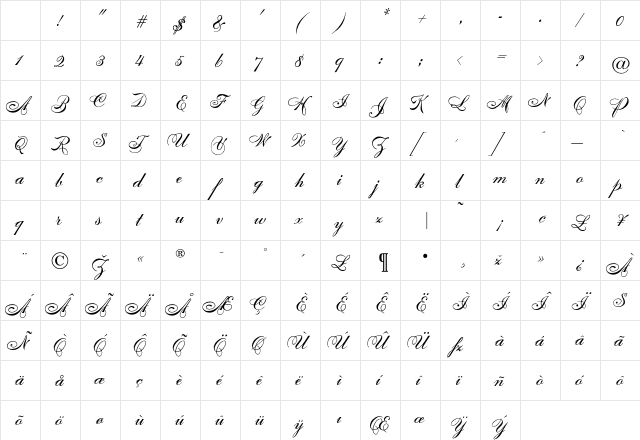
Complete UniversityScript Regular glyph index. Displaying only characters natively supported by UniversityScript Regular font.
UniversityScript flows with the natural rhythm of handwritten lettering, making it ideal for designs that call for warmth and personal expression.
Font Pairing: Combine UniversityScript with a simple geometric sans for maximum contrast - the tension between flowing curves and clean structure is a classic typographic pairing.
Pro Tip: Use UniversityScript for short runs of text - names, titles, or taglines. Extended body copy in script faces tires the eye quickly.